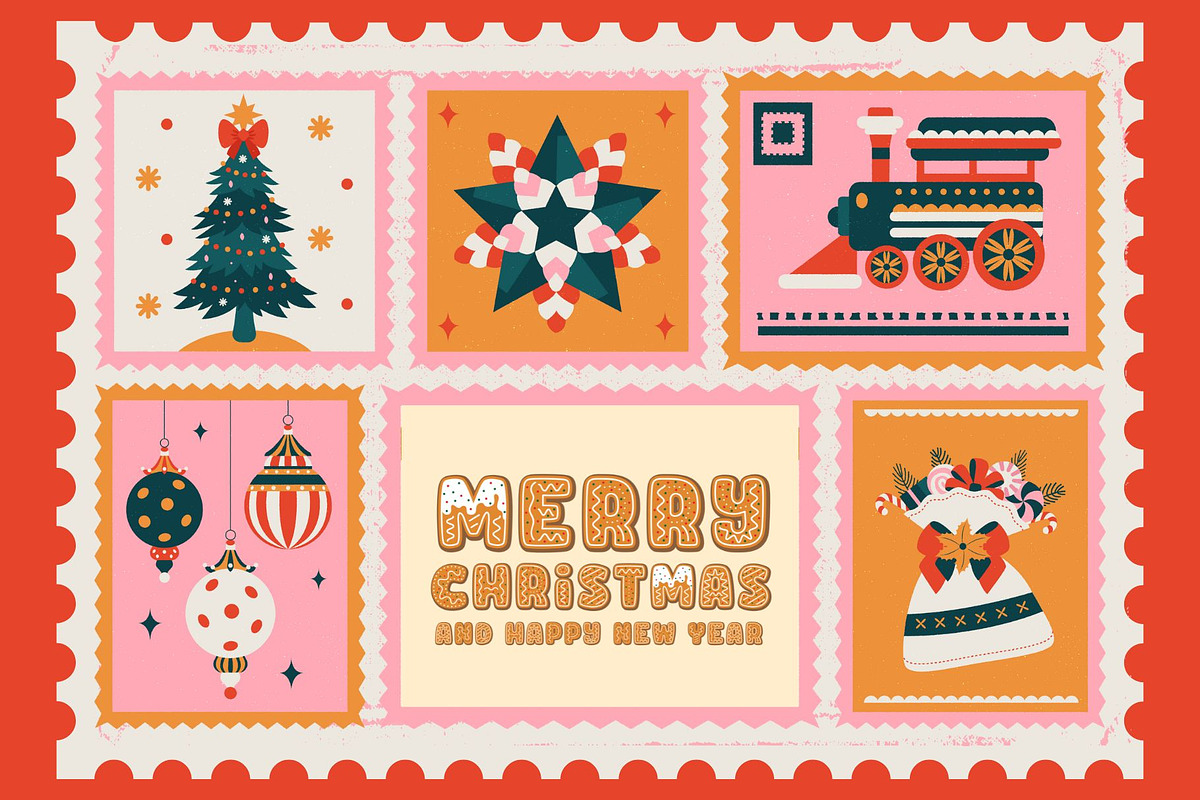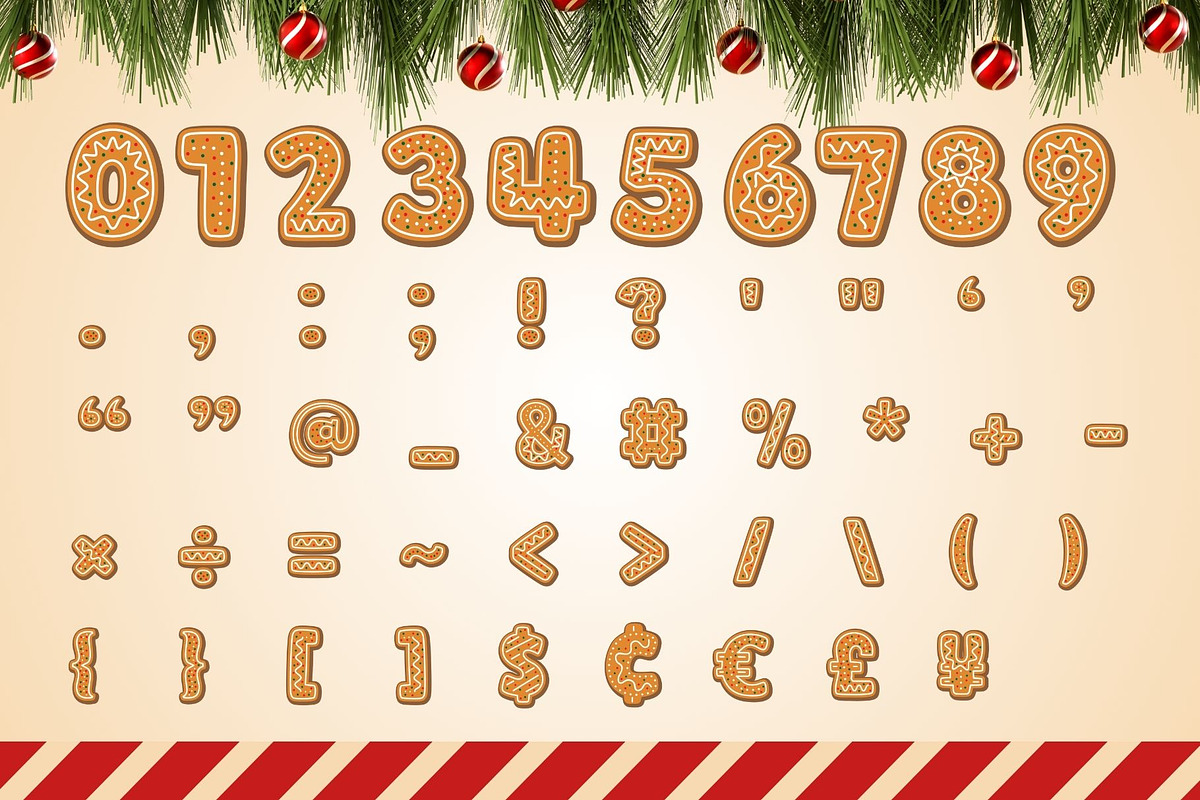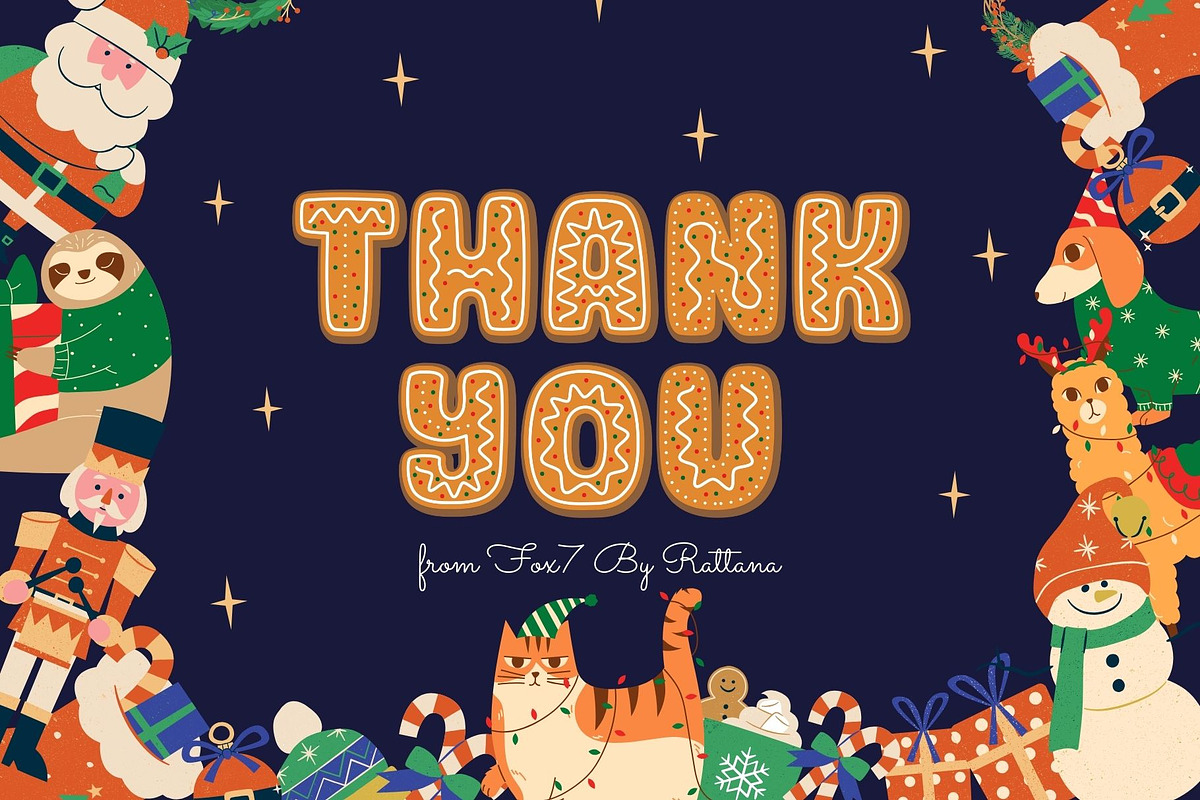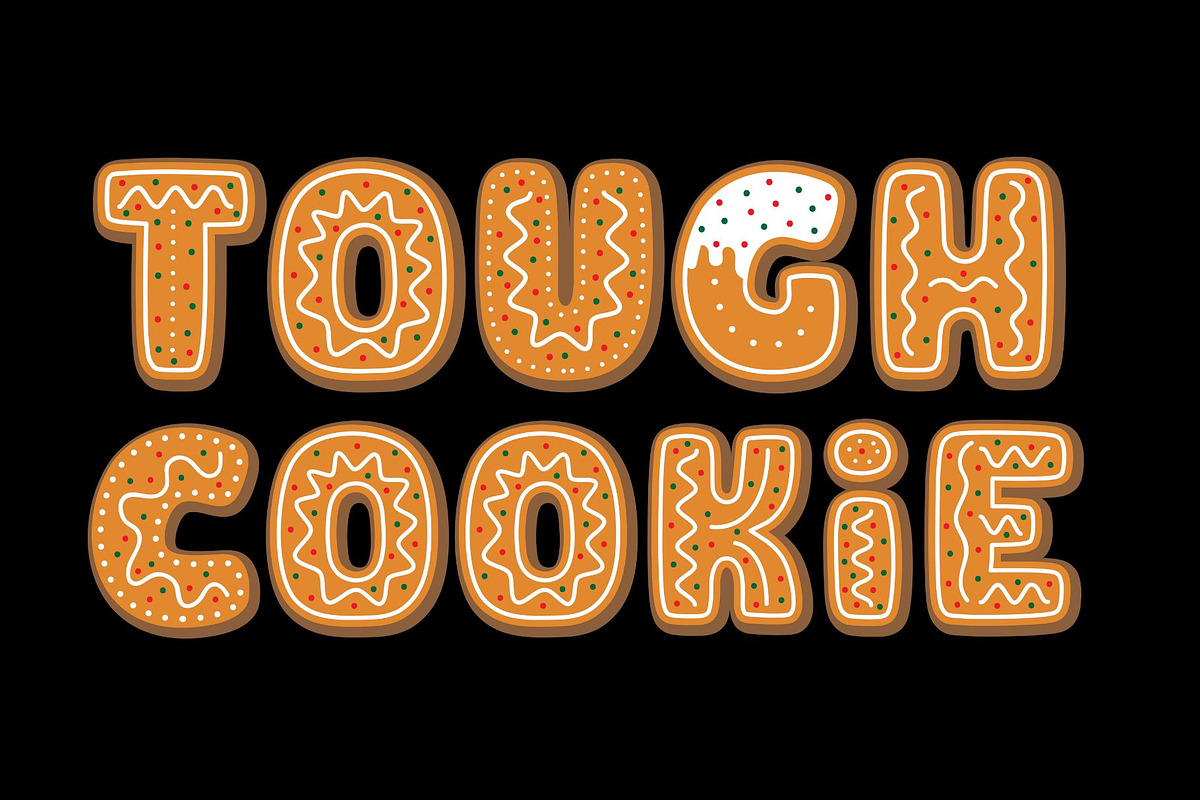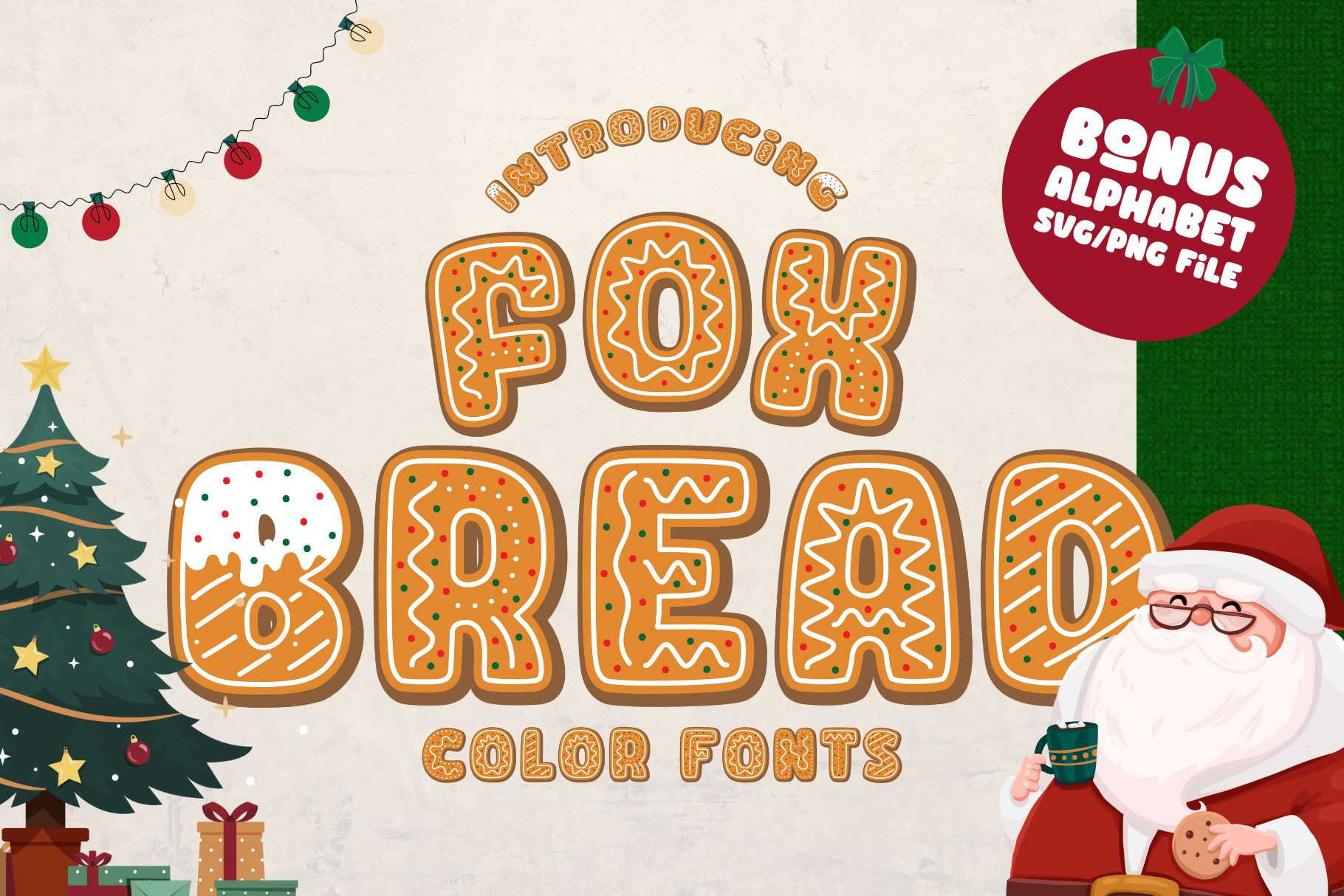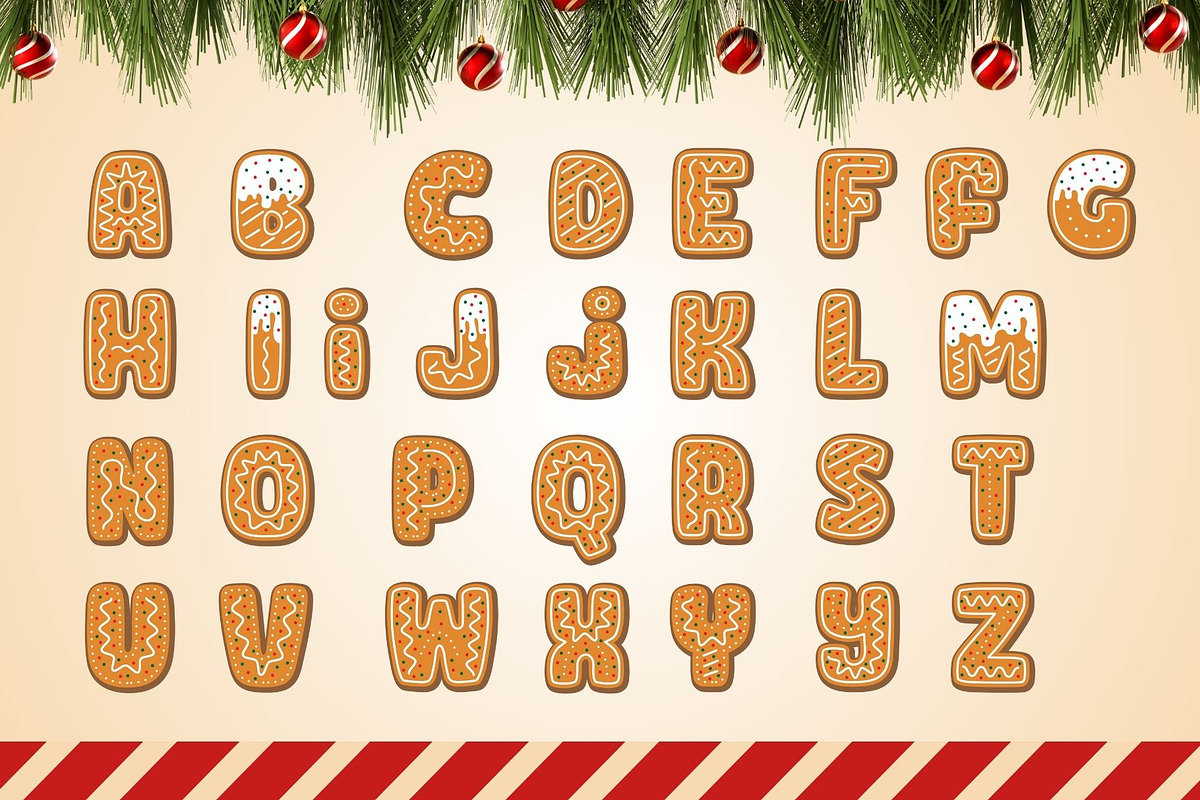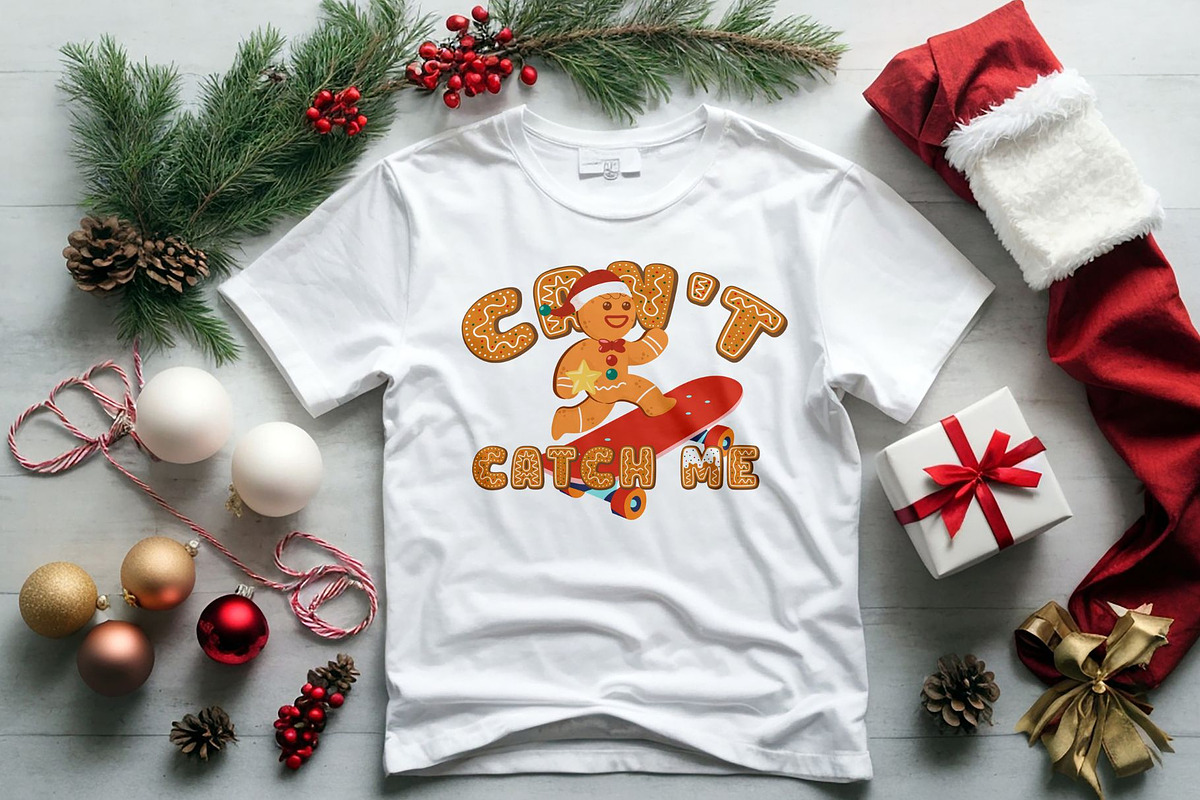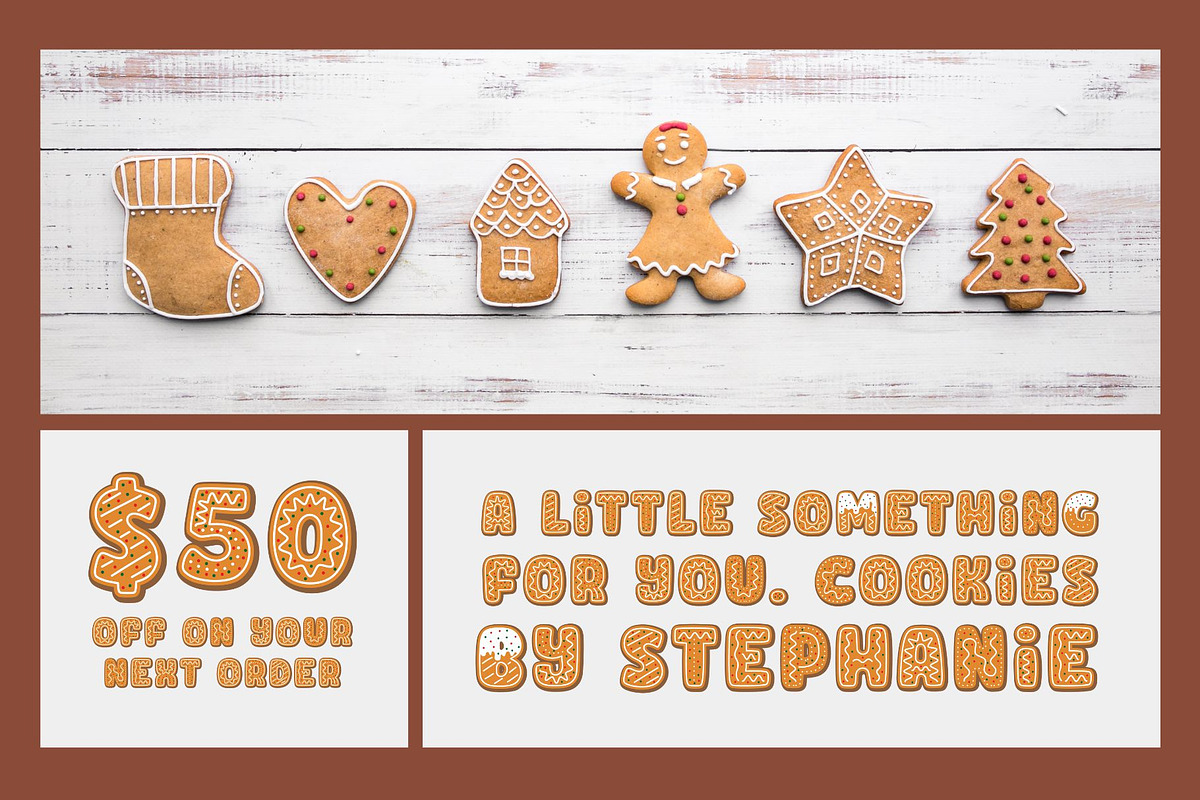
Fox Bread Color Fonts
Fox Bread is a delightful gingerbread cookie-style color font, perfect for adding a festive touch to your creative projects. Whether you're designing greeting cards, posters, banners, invitations, or any other holiday-themed piece, this font brings the warmth and charm of the season to life. Add Fox Bread to your collection and spread holiday cheer with every design!